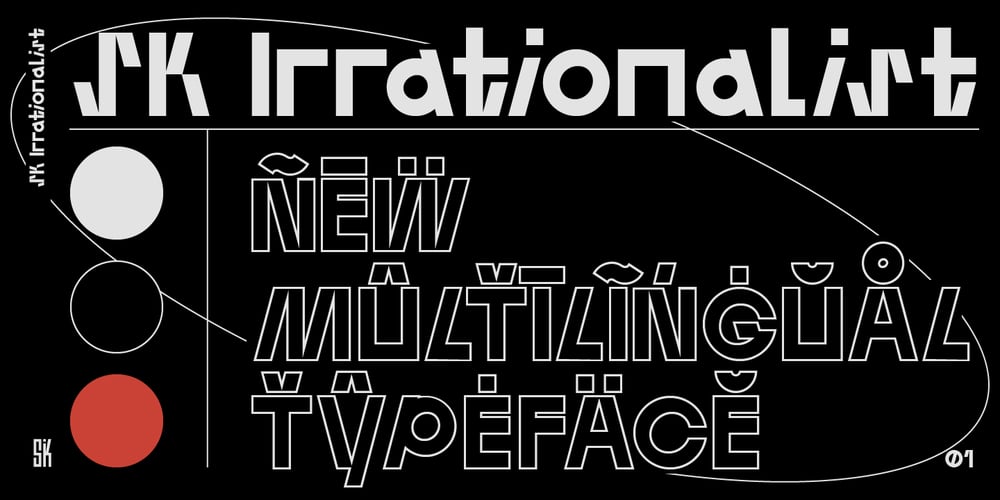
SK Irrationalist Font Family was designed by Tikhon Reztcov and published by Shriftovik. SK Irrationalist contains 4 styles and family package options. SK Irrationalist is a new experimental accidental font created by the SHRIFTOVIK font foundry and Tikhon Reztcov. This font is very unusual. It uses non-standard graphic techniques. Sloping non-parallel lines, sharp shapes and a combination of rectangles and circles all make the font special. The SK Irrationalist font was inspired by the works of constructivist artists of the early 20th century. The font contains both Latin, Latin Pro version for European countries and Cyrillic.This font delivered in 4 styles: Regular; Sharp; Outline; Rounded.